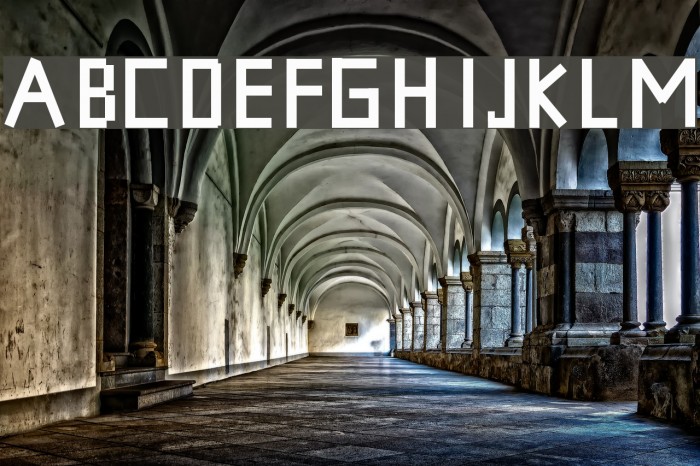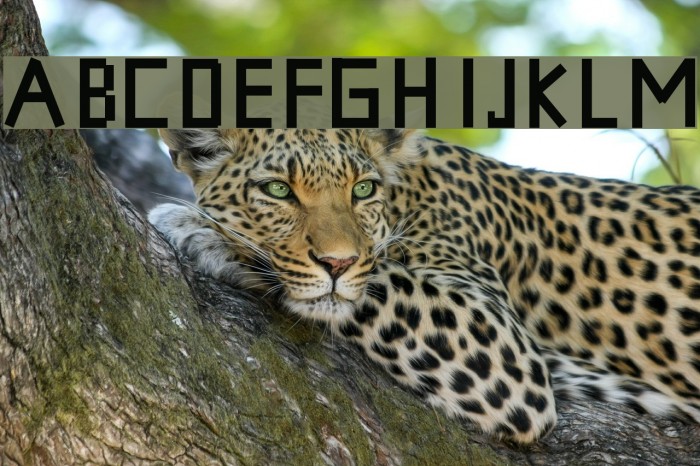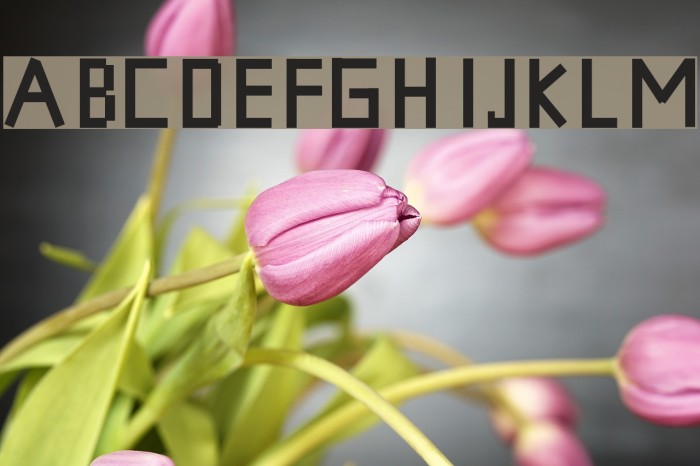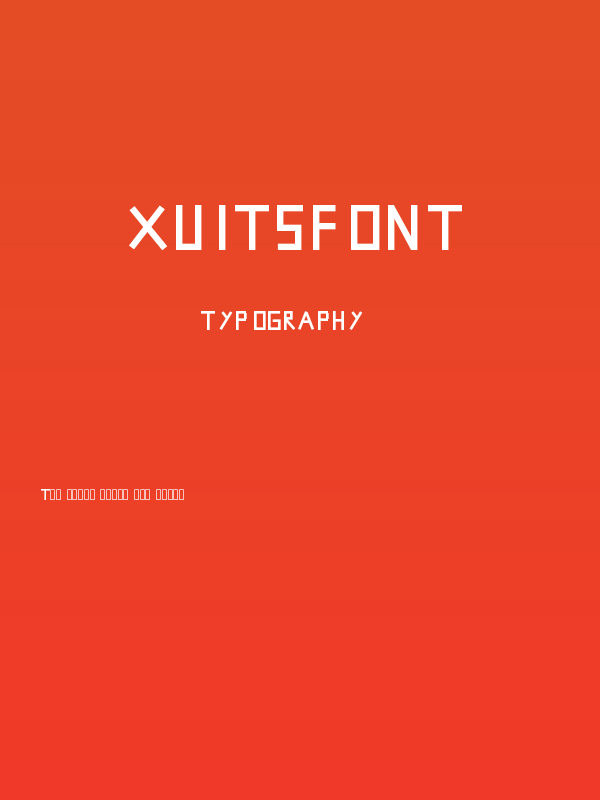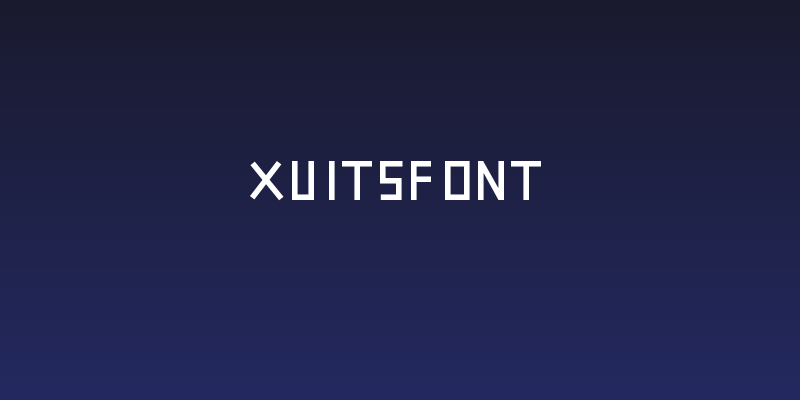
XuitsFont Font
XuitsFont Description
This font features a bold and geometric design with a modern and futuristic aesthetic. The uppercase letters are constructed with sharp angles and straight lines, giving them a strong and assertive presence. The characters are uniform in width, contributing to a monospaced appearance. The absence of curves and the emphasis on angular shapes create a distinct and edgy look. This style is particularly suitable for projects that require a contemporary and tech-savvy feel. The font's design is clean and uncluttered, making it highly legible even at smaller sizes.
Proposed ProjectsIdeal for technology branding, video game titles, sci-fi movie posters, and digital interfaces.